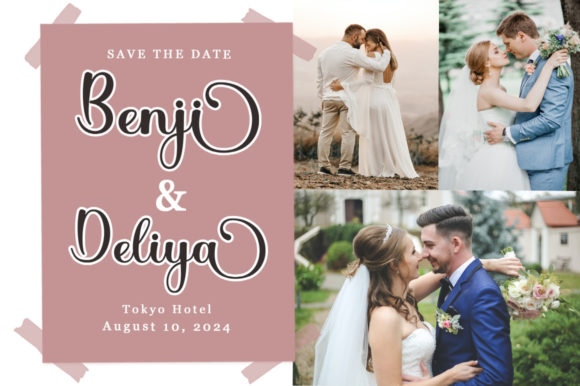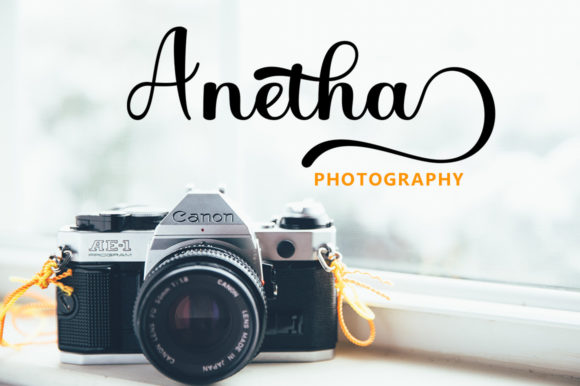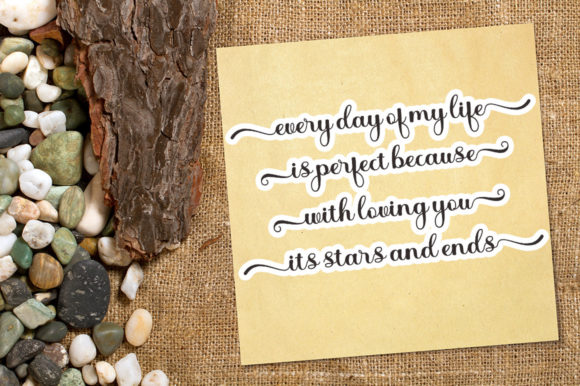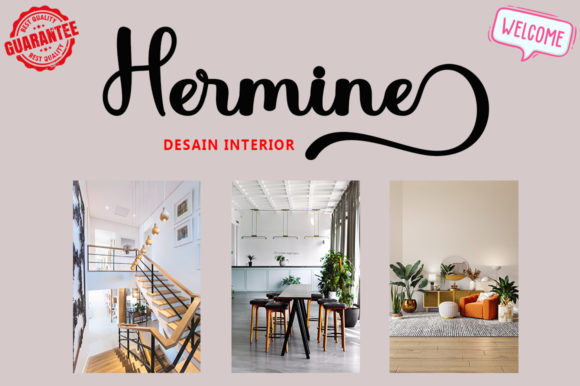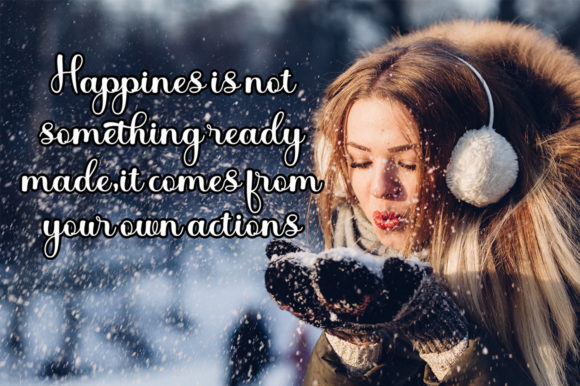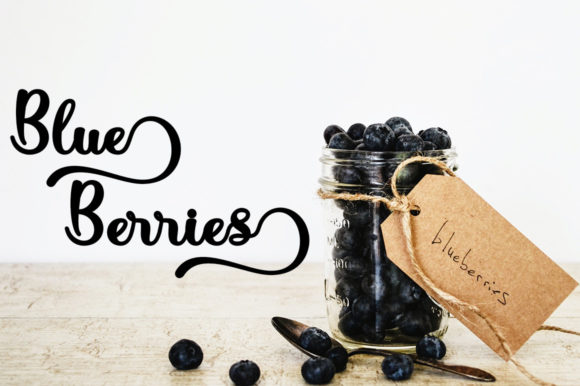
Introducing Blue Diamond Font: Elegance Meets Modernity
In the world of typography, few fonts manage to strike a balance between classic elegance and contemporary flair. Blue Diamond Font is one such exceptional typeface that brings together the timeless beauty of traditional calligraphy with a modern twist. Designed to inspire creativity and sophistication, Blue Diamond is an elegant script font that is sure to captivate designers, crafters, and anyone looking for a touch of luxury in their projects.
The Inspiration Behind Blue Diamond
Blue Diamond Font draws its inspiration from the timeless classics of calligraphy, where every stroke and curve is a testament to the art of beautiful writing. The creators of Blue Diamond have meticulously crafted each letterform to reflect the essence of traditional calligraphy, while infusing it with a contemporary atmosphere that makes it relevant for modern design projects. The result is a font that exudes elegance, sophistication, and a sense of refinement.
Key Features of Blue Diamond Font
One of the standout features of Blue Diamond Font is its impeccable form. Every letter, from the uppercase and lowercase alphabets to the numbers and punctuation marks, is designed with precision and attention to detail. This ensures that the font is not only beautiful but also highly legible, making it suitable for a wide range of applications, from branding and advertising to packaging and stationery.
Another significant advantage of Blue Diamond Font is its PUA (Private Use Area) encoding. This means that users can easily access all the amazing glyphs and ligatures that the font has to offer. The inclusion of PUA encoding makes Blue Diamond highly versatile and user-friendly, allowing designers to experiment with different styles and variations without any hassle.
Who Can Benefit from Blue Diamond Font?
Blue Diamond Font is a valuable addition to the toolkit of various professionals and hobbyists. Here are some of the groups that can benefit from this elegant script font:
- Graphic Designers: Whether you’re working on a branding project, creating marketing materials, or designing a website, Blue Diamond Font can add a touch of elegance and sophistication to your designs.
- Crafters: If you’re into crafting, scrapbooking, or DIY projects, Blue Diamond Font can be used to create beautiful journal entries, card making, and other paper crafts.
- Stationery Designers: Designers who specialize in creating stationery, such as notebooks, journals, and letterheads, will find Blue Diamond Font to be an excellent choice for adding a touch of luxury and refinement.
- Digital Artists: Digital artists and illustrators can use Blue Diamond Font to add text elements to their artwork, bringing a sense of realism and authenticity to their creations.
Tips for Using Blue Diamond Font
To make the most of Blue Diamond Font, here are a few tips:
- Pair it with contrasting fonts: Combine Blue Diamond Font with simpler, sans-serif fonts to create visual interest and hierarchy in your designs.
- Experiment with colors: Don’t be afraid to try out different colors and gradients to match the tone and mood of your project.
- Play with ligatures: Take advantage of the font’s ligatures and glyphs to add a touch of uniqueness and personality to your text.
Blue Diamond Font is a stunning script font that brings together the best of classic calligraphy and modern design. With its elegant letterforms, impeccable form, and PUA encoding, it’s an excellent choice for designers, crafters, and anyone looking to add a touch of sophistication to their projects. Whether you’re working on a professional project or a personal hobby, Blue Diamond Font is sure to inspire creativity and elevate your designs to new heights.